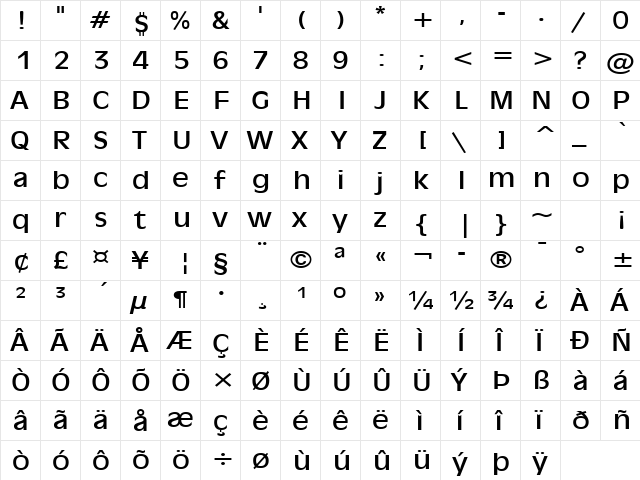
Antiqua 101 Wide Normal
Design Context for Antiqua 101 Wide Typeface
Antiqua 101 Wide takes a measured approach to typography — its balanced proportions and neutral character make it a reliable workhorse for both digital and print work.